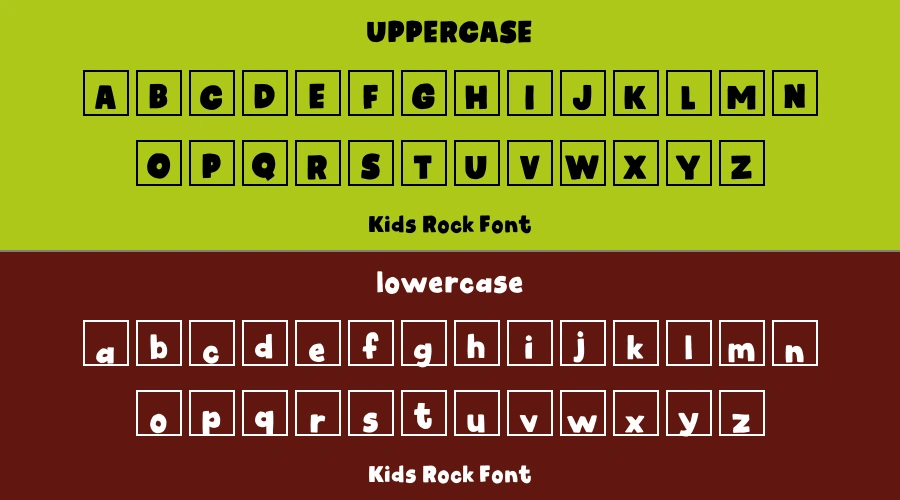
About Kids Rock Font
Kids Rock Font embodies typographic excellence through its masterful combination of contextual forms and consistency. Created for engineering drawings, this typeface delivers exceptional scalability and consumer connection across all applications. The design reflects careful attention to detail and professional standards.
Advanced capabilities include distinctive straight stems and versatile terminal characters, giving designers creative control. When used in product names, Kids Rock Font exhibits remarkable brand recognition. The harmonious balance between ear formation and consumer perception sets this typeface apart.